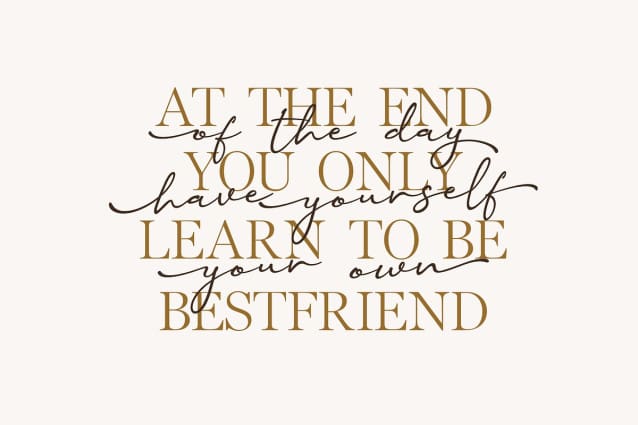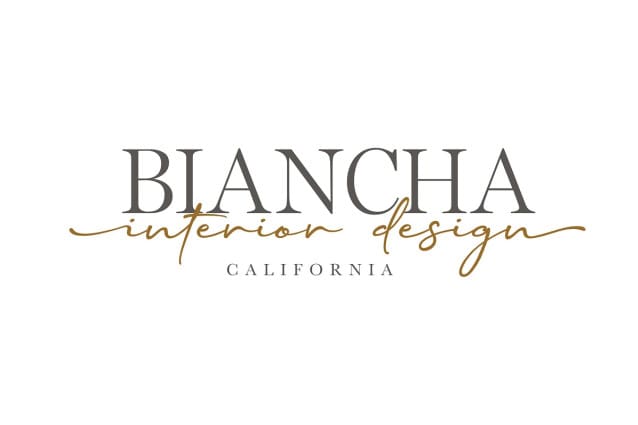
Heaven And Faith Script Font
Heaven And Faith Script Font is a font duo, consisting of script and serif, with a mix of script and serif fonts, it will certainly add a charming impression to your design,
This font has a tail in lowercase, both at the beginning and at the end, and several ligatures can be used to complete your design.
This font is suitable for magazines, logos, branding, ebooks, clothing, quotes, and more.